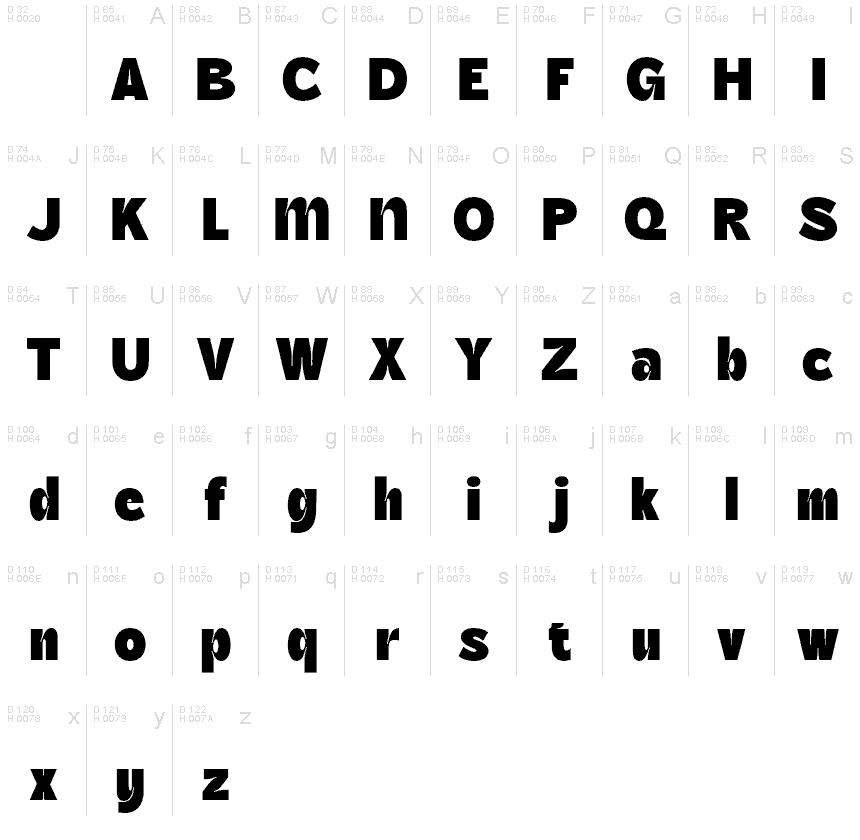
Marsen Demo Regular
Marsen font by Craft Supply Co is a bold sans serif with retro influences. Its geometric makeup and distinctive letterforms are strong and hardly unnoticed in any application. The unique typeface features characters with different shapes which together create an outstanding visual composition.
Not free, Marsen is suitable for making logos, headlines, posters, magazines, greeting cards, invitation cards and others. Other uses also include branding projects whether the font is used for the name itself of as part of the overall package.